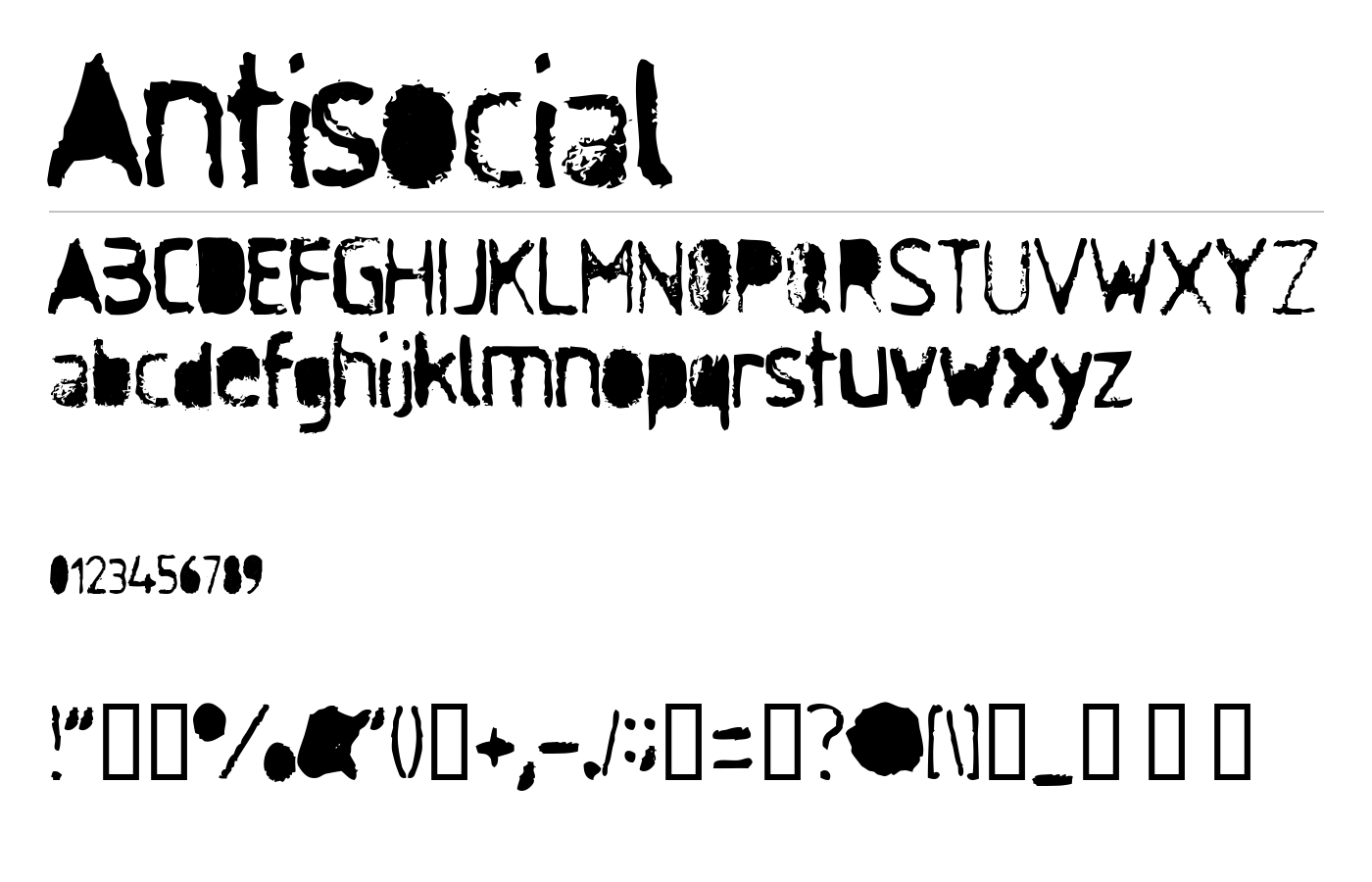
Antisocial is a bold, distressed sans serif font with a rough, grungy texture that gives it a rebellious and edgy personality. Its irregular, ink-splattered shapes and uneven letterforms make it an excellent choice for projects that want to stand out with a raw, urban, or alternative vibe, perfect for posters, album covers, and edgy branding. This font works best in display sizes where its unique, chaotic style can be fully appreciated.
Antisocial Font
About Antisocial Font